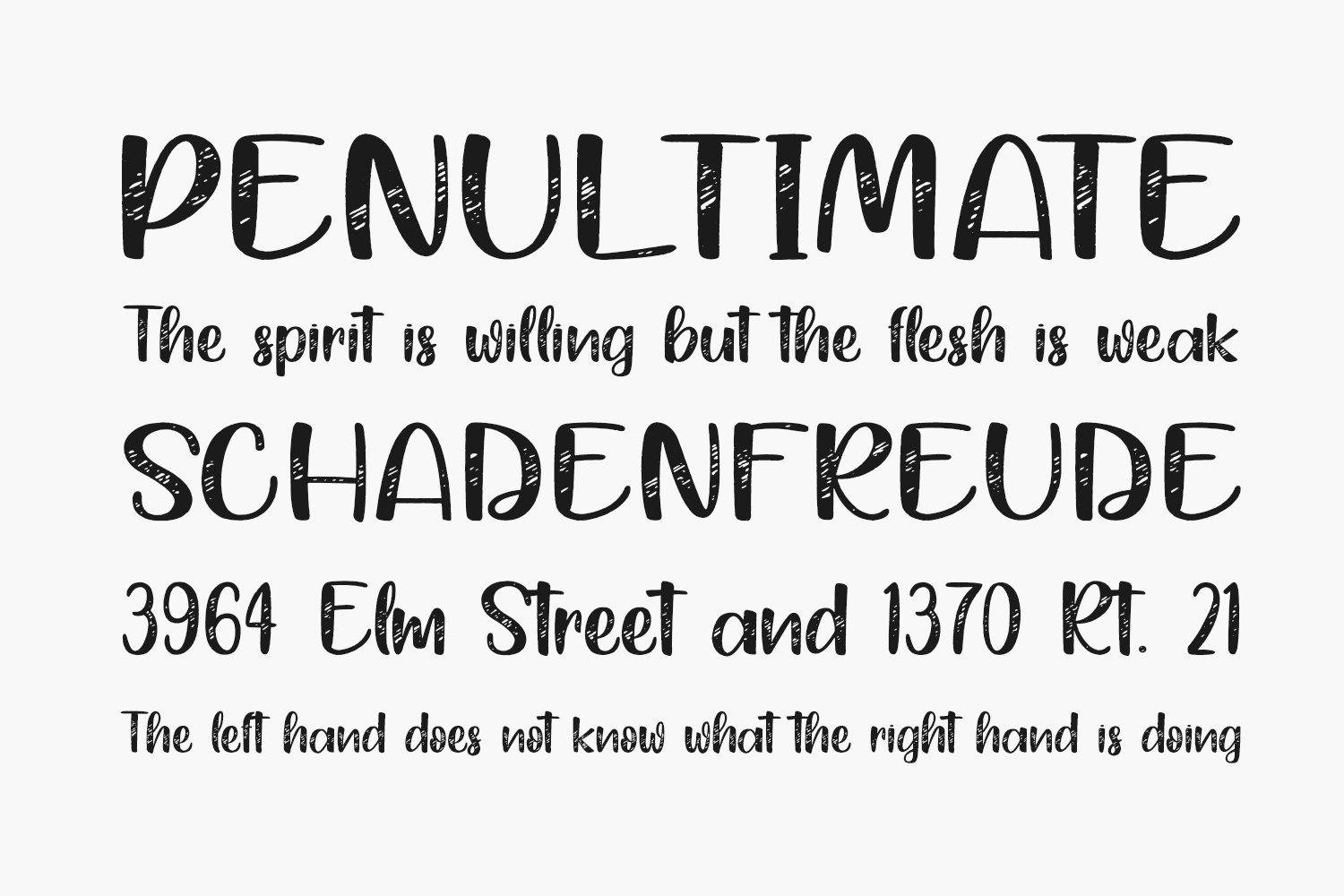
Black Parade Free Font is a cute and casual handwritten font with an incredibly friendly feel. It’s perfect for logos, branding, social media posts, greeting cards, and much more. Black Parade Free Font was designed by Typhoon Type™ and is free for personal use only. Please purchase the full version for commercial use.